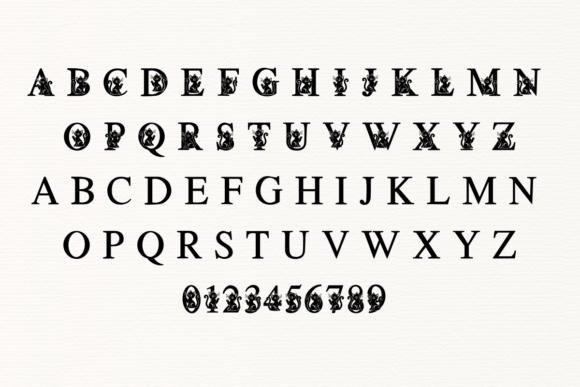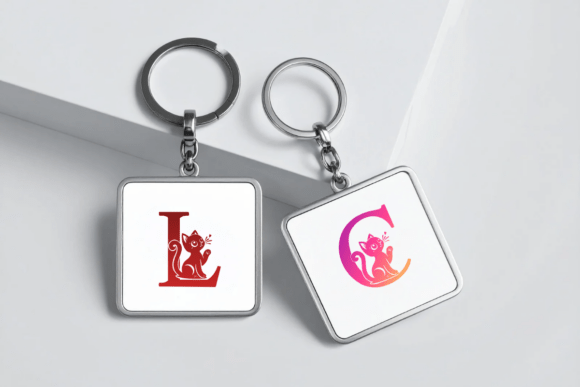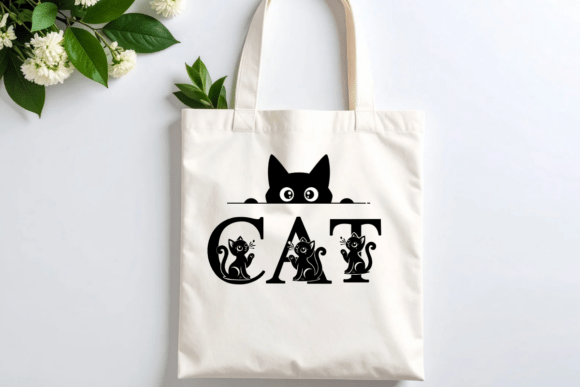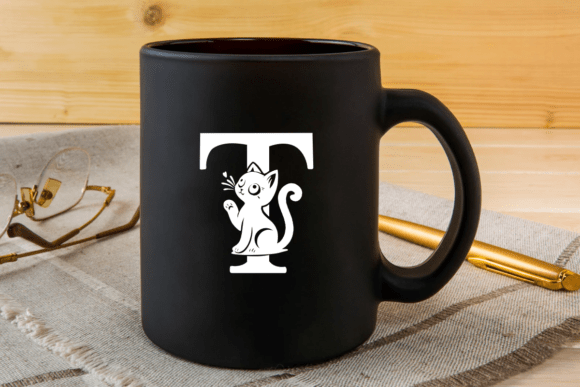
Get Ready to Purr-fect Your Designs with Cat Love Font Font
Who hasn’t experienced that magical moment when creativity strikes, and you can’t wait to put your ideas down on paper? For many of us, that moment is often accompanied by a furry friend or two, and it’s no surprise why cat lovers adore fonts that capture the whimsy and charm of our feline companions. Enter Cat Love Font Font, a delightful decorative font that’s perfect for adding a touch of personality to your creative projects.
Whether you’re jotting down notes, writing a heartfelt diary entry, or crafting a special greeting card, Cat Love Font Font is an excellent choice. But its versatility doesn’t stop there – it’s also ideal for designing banners, social media posts, mugs, and more. As a designer, you’ll appreciate the value of having a font that’s both visually appealing and easy to use, making it a valuable addition to your design toolkit.
Cat Love Font Font Key Features
- Font Family: Cat Love Font Font, a unique and playful font designed specifically for cat lovers.
- Font Size: 300 glyphs, covering a wide range of characters, including Latin, Cyrillic, and Greek alphabets.
- Unique Characteristics: Features adorable cat illustrations and whimsical designs, adding a touch of playfulness to any project.
Designer Review: Cat Love Font Font
Overall, I think the Cat Love Font Font is a cute and playful font that can be a great addition to certain design projects. Here are some things that work well:
- ✨ The font’s whimsical feel is perfect for designs targeting cat lovers or young children.
- ✨ The font’s varied weights and styles provide flexibility for different design applications.
- ✨ The font’s high-quality design ensures clear and readable text.
- ⚠️ The font may not be suitable for professional or formal designs, as it can come across as too playful or juvenile.
- ⚠️ The font’s limited language support may restrict its use in multilingual designs.
In conclusion, the Cat Love Font Font is a fun and versatile font that can be a great choice for certain design projects. While it may have some limitations, it’s definitely worth considering for designs that require a playful and whimsical touch.
Tips for Getting the Most Out of Cat Love Font
Use Cat Love Font to add a playful and whimsical touch to your designs. Try pairing it with bold colors and cute graphics to create a fun and eye-catching effect.
Cat Love Font is perfect for:
- Children’s party invitations
- Animal-themed merchandise
- Whimsical greeting cards